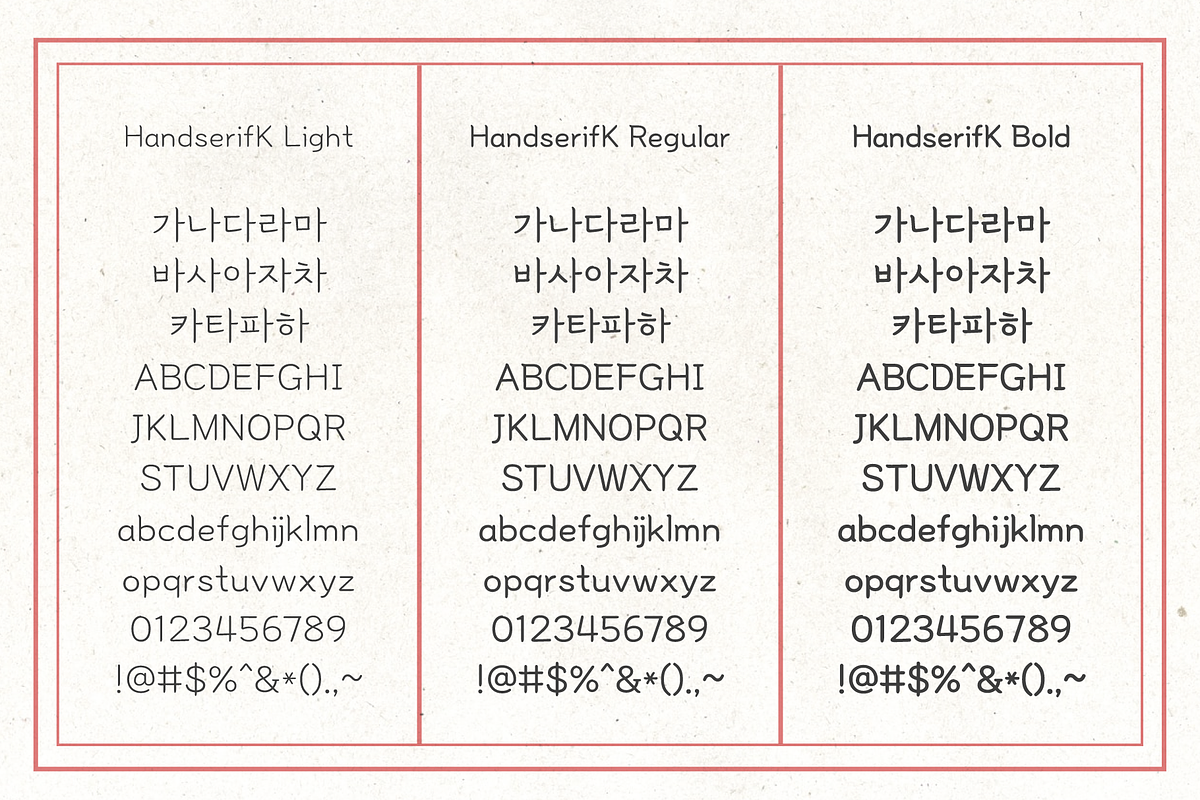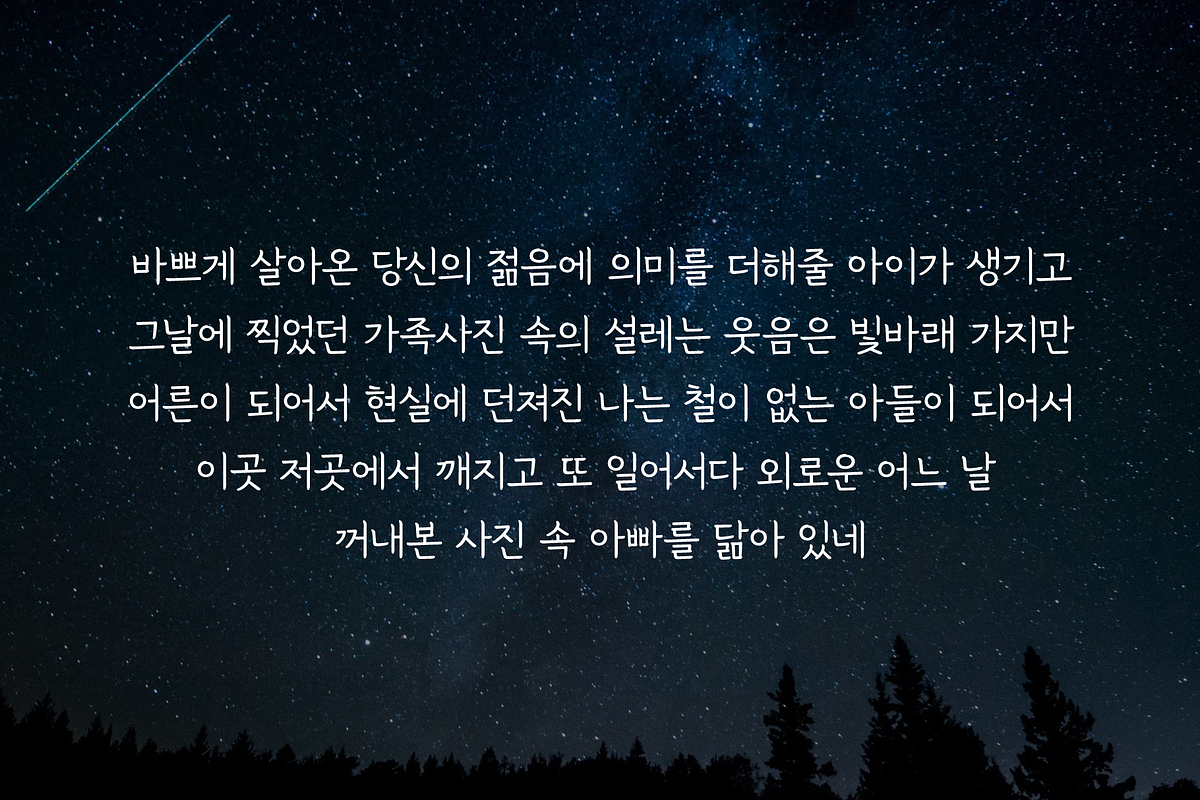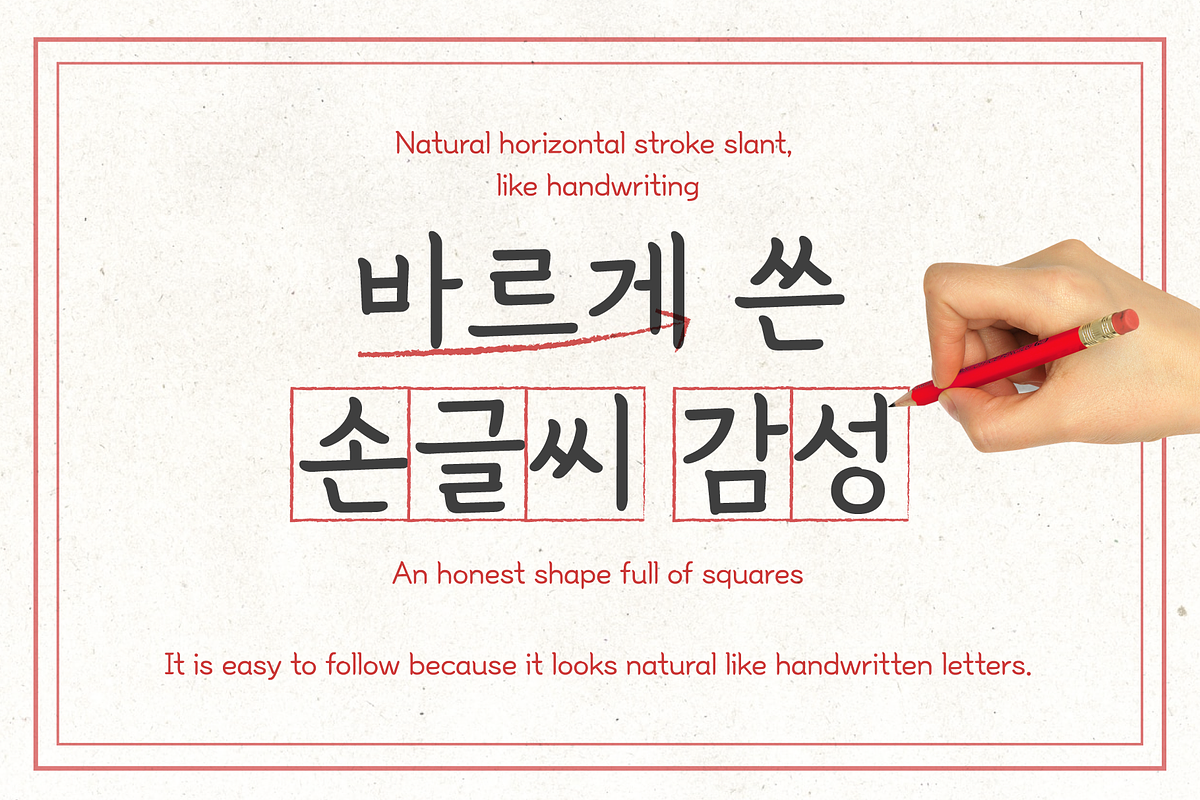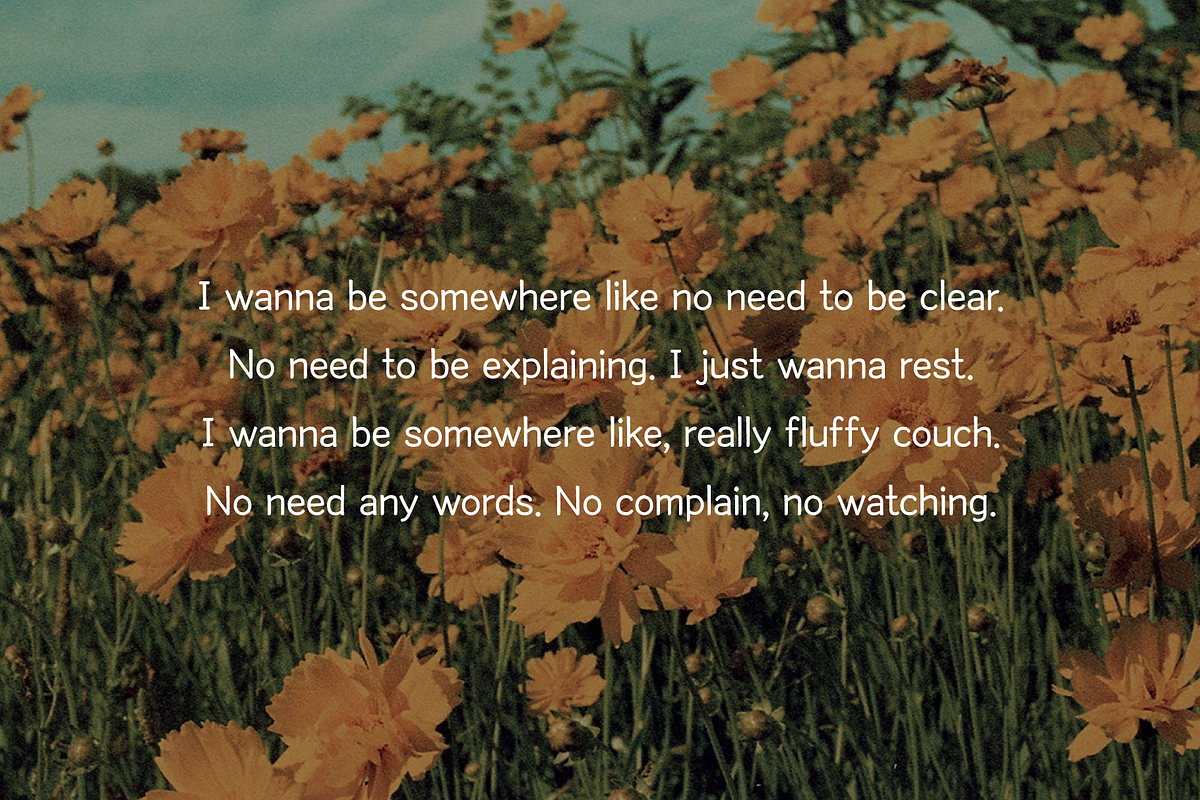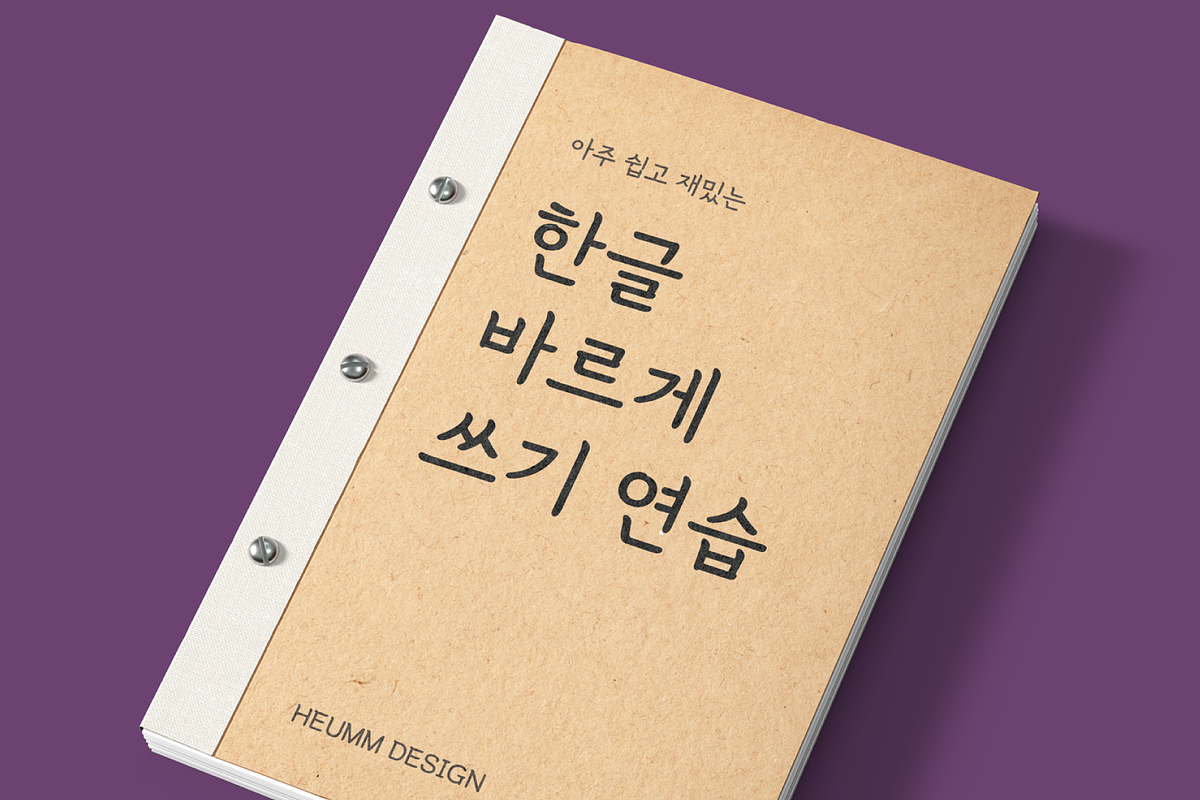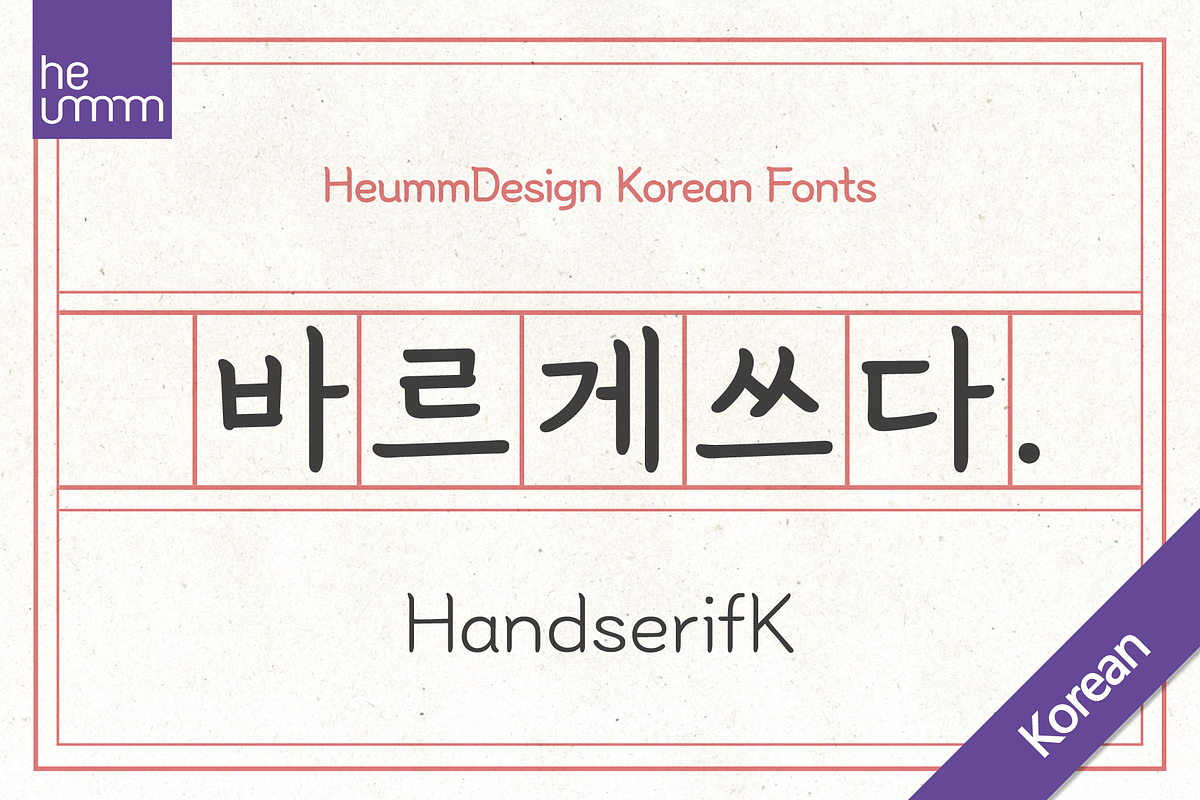
HU Hand Serif KR expresses the heart written down by hand in a font.
Since there are no curved serifs, it is a handwritten typeface that is easy for children to follow correctly.
It was produced using the order of strokes so that Hangeul can be written in the correct order, and the shape and size of the initial consonants, middle consonants, and final consonants were produced correctly.
It also has an honest and correct form based on the basic principles of letters and the structure according to the form.
HU Handserif KR contains KOREAN words and Latin alphabets.
There are 3 weights of HU Handserif KR : Light, Regular, Medium